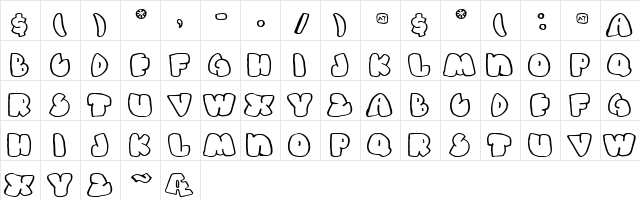
Gas Huffer Phat Regular
Design Context for Gas Huffer Phat Typeface
Gas Huffer Phat is a composed and adaptable typeface that performs quietly and consistently across a wide range of design contexts.